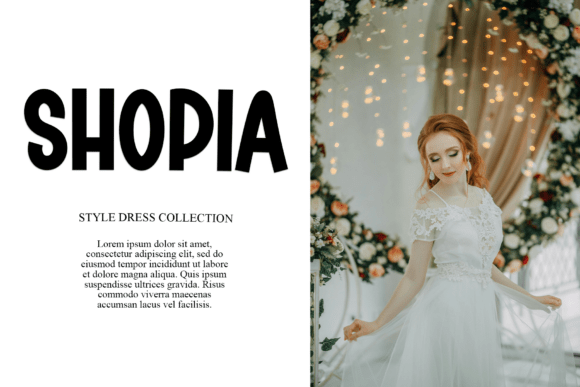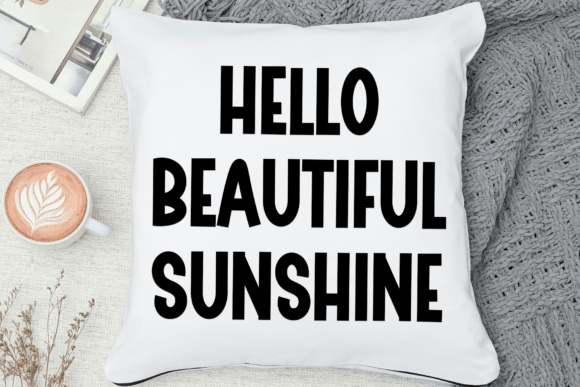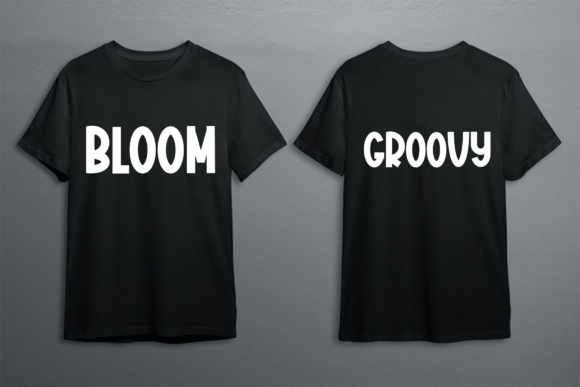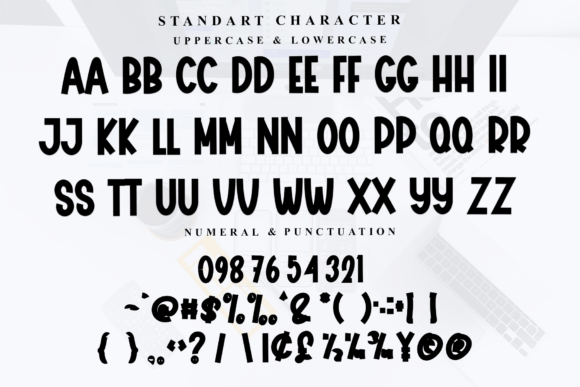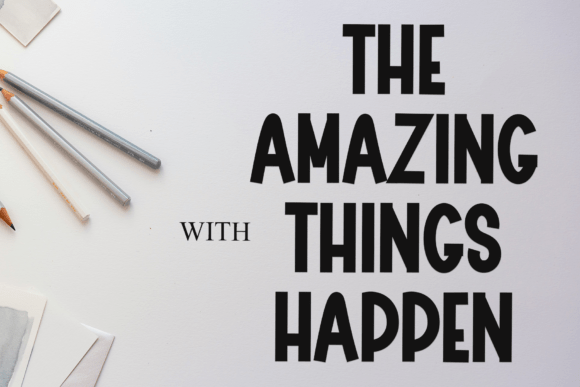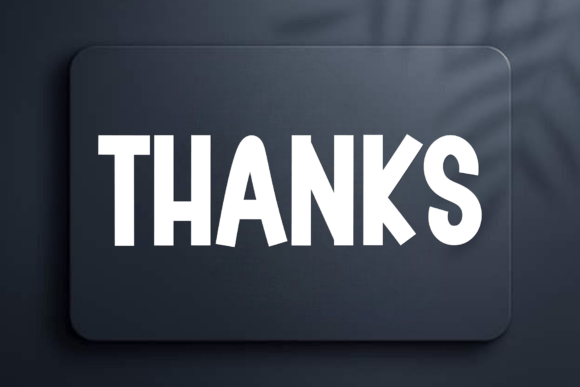
Introduction to Mother History Font
Have you ever been browsing through a vintage bookstore, and a particular font catches your eye, instantly drawing you in? That’s exactly what happens when you lay eyes on the Mother History Font. Its soft, unique touch is like a warm hug for your creative projects, making it the perfect addition to any design resource.
As a designer, you’re always on the lookout for high-quality fonts that can elevate your work. The Mother History Font is not just any font – it’s a game-changer. With its transparent background and beautiful strokes, it’s perfect for a wide range of creative projects, from crafts to digital designs. And the best part? It’s available for free download, making it an invaluable resource for designers of all levels.
Key Features of Mother History Font
- Features a transparent background, allowing for seamless integration with any design or background.
- Includes a wide range of glyphs, including uppercase and lowercase letters, numbers, and special characters.
- Designed with a classic and vintage feel, making it perfect for historical or nostalgic-themed projects.
Honest Review: Mother History Font
As a designer, I’m always on the lookout for high-quality design resources to elevate my creative projects. Recently, I stumbled upon the Mother History Font, and I’m excited to share my honest review with you.
What works well: ✨ The font has a beautiful, vintage feel that’s perfect for historical or cultural-themed projects. The clear, transparent background makes it easy to pair with any color or texture. The font’s unique characters and letterforms add a touch of personality to any design.
Here are some of the font’s key features:
- High-quality design with a vintage feel
- Clear, transparent background for easy pairing
- Unique characters and letterforms for added personality
Limitations: ⚠️ The font may not be suitable for projects that require a modern or minimalist aesthetic. Additionally, the font’s size and legibility may be affected by the complexity of the design.
Overall, I’m impressed with the Mother History Font. It’s a great addition to any designer’s toolkit, and I’ve already used it in several projects. If you’re looking for a unique and high-quality font for your creative project, I highly recommend giving the Mother History Font a try.
How to Use Mother History Font
The Mother History Font is a unique design resource that can add a touch of elegance and sophistication to your creative project. This high-quality font features a transparent background, making it versatile for various applications.
Getting the Most Out of the Mother History Font
For optimal results, use the font in conjunction with other design elements, such as bold colors and textures. Experiment with different font sizes and styles to create a unique look.
The Mother History Font is ideal for:
- Historical or vintage-themed designs
- Formal event invitations and announcements